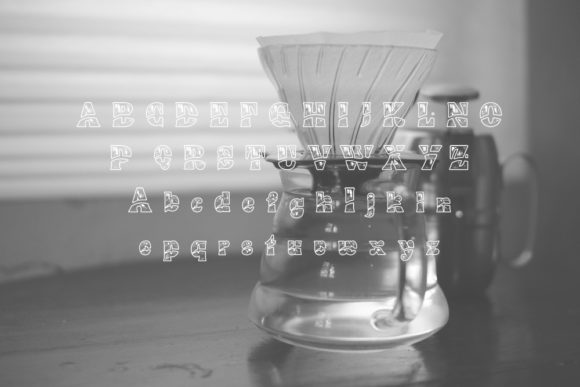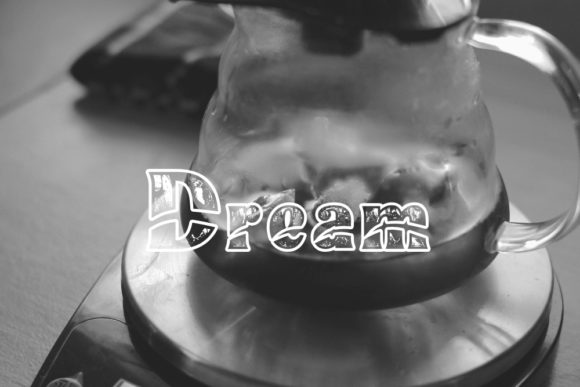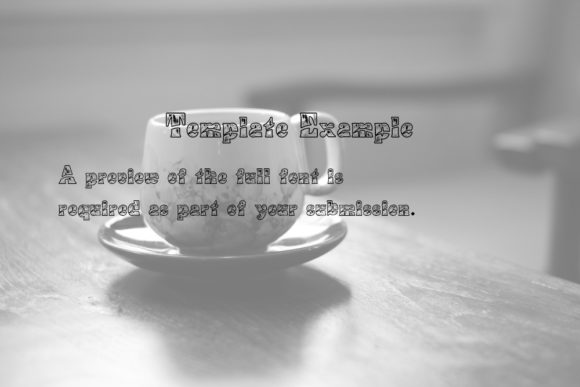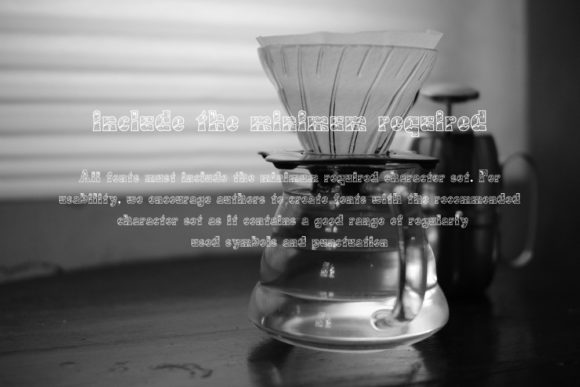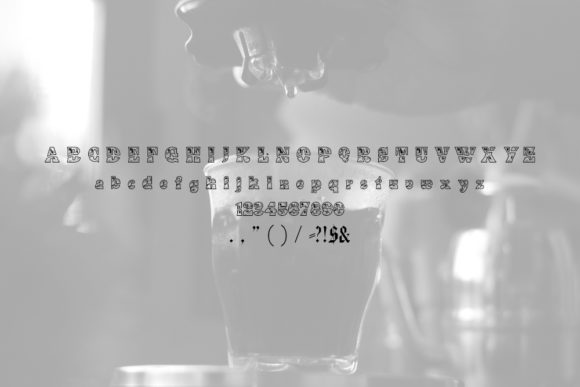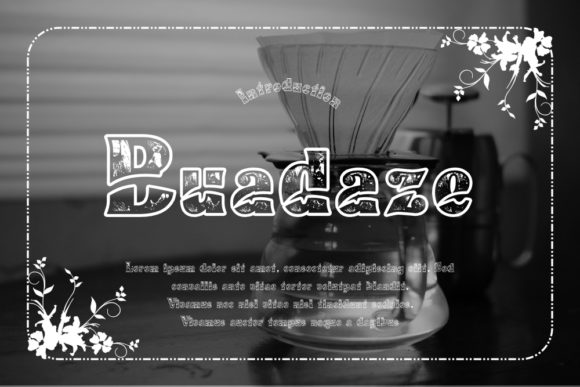
The Buadaze Font: A Quirky Display Font to Elevate Your Designs
I’ll never forget the time I was working on a project for a client who wanted a bold, eye-catching font to capture the essence of their brand. I scoured the internet, tried countless fonts, but nothing seemed quite right. That was until I stumbled upon the Buadaze font. Its unique and quirky design instantly caught my attention, and I knew I had found the perfect fit. In this article, I’ll share my experience with Buadaze, its features, and how to make the most of this incredible display font.
An Honest Review of Buadaze
What I Love About Buadaze
• ✨ Unique and distinctive design that stands out in any context
• ✅ Highly versatile and adaptable to various design projects
• 💡 Quirky and playful feel that adds a touch of personality to any text
• 🎨 Excellent for display text, headings, and titles
While Buadaze is an amazing font, there are a few things to keep in mind:
• 🤔 May not be suitable for body text or long paragraphs due to its bold and playful nature
• ⚠️ Some characters may not be suitable for use in small sizes due to intricate design
The Backstory of Buadaze
Buadaze was designed by a talented font designer who wanted to create a font that would stand out in any context. Inspired by the eclectic mix of urban landscapes and vintage typography, Buadaze was born. The font’s unique design and quirky personality make it perfect for designers, crafters, and creative hobbyists looking to add a touch of personality to their work.
Q: What is Buadaze font best used for?
A: Buadaze is best used for display text, headings, and titles where a bold and playful font is desired.